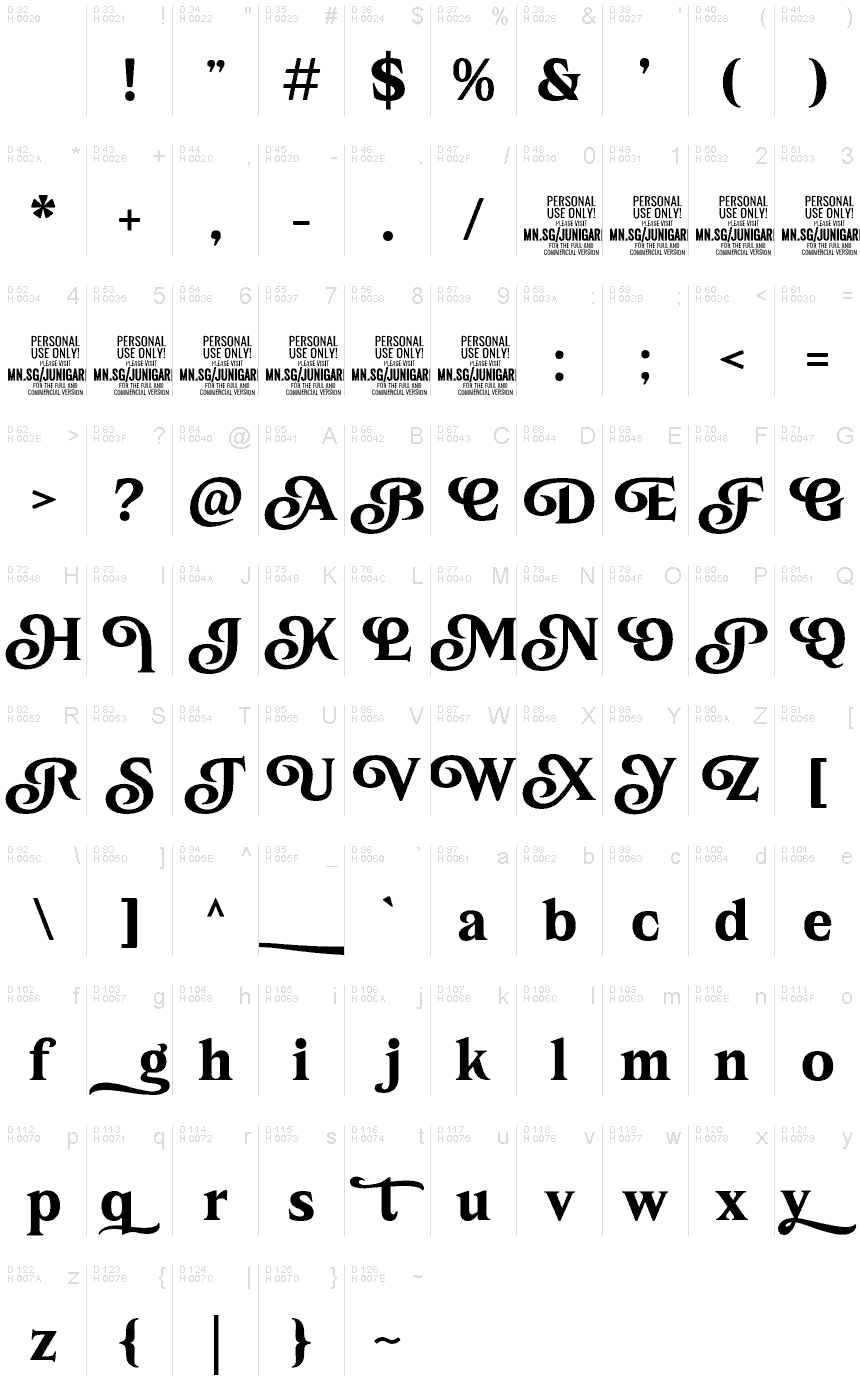
Junigarden Swash PERSONAL USE Regular
Junigarden Swash font is a retro bold display font designed by Mans Greback. It has the remarkable ability to blend elegant, sophisticated vibes with giving texts a noticeable clarity. Whether large or short, every text that applies Junigarden Swash will be absolutely clear and whole within which no element is overshadowed. The balanced tones of nostalgia and vintage are enhanced by sophisticated flair and slender twisty curves.
You can use an underscore (_) anywhere in a word to create a swash.
For example: Pri_nce
Using multiple underscores will generate different swashes:
Am_______ore